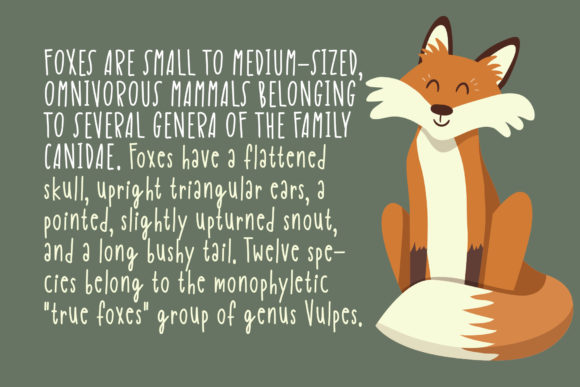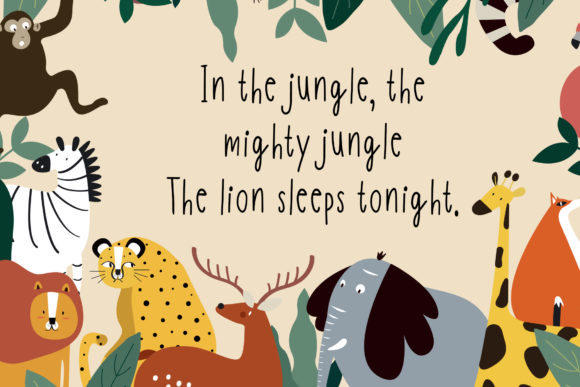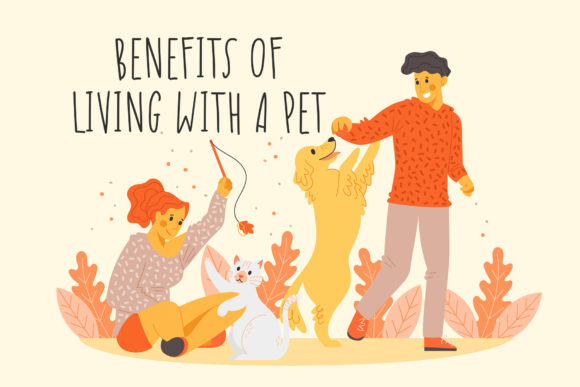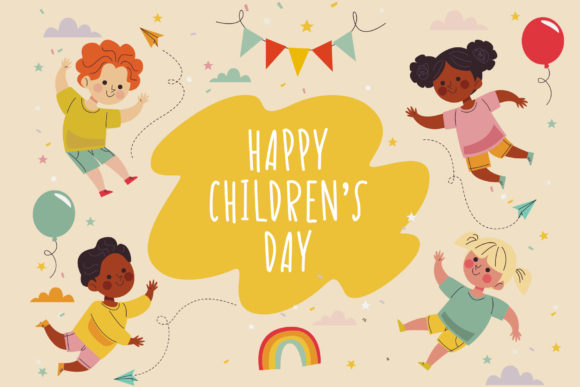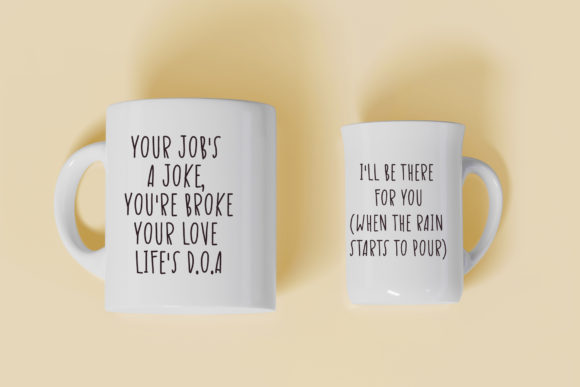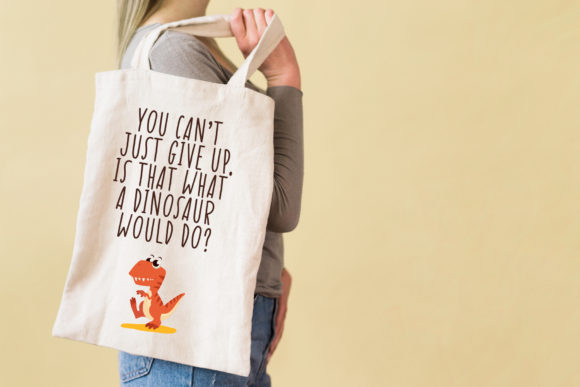
The Brown Fox Font: A Sweet and Friendly Companion for Your Designs
I’ll never forget the moment I stumbled upon the Brown Fox font. I was working on a project for a client’s wedding invitation, and I was struggling to find the perfect handwritten font that would capture the warm and cozy atmosphere of the event. The client had a clear idea of what they wanted, but I was having a hard time finding a font that matched their vision. That’s when I discovered Brown Fox, and it was love at first sight! 💕
So, what makes Brown Fox so special? Here are a few things that I absolutely love about this font:
- ✨ Unique and natural style: Brown Fox has a one-of-a-kind, handcrafted feel that sets it apart from other fonts.
- ✅ Highly versatile: This font can be used for a wide range of designs, from wedding invitations to social media graphics.
- 💫 Easy to read: Despite its unique style, Brown Fox is incredibly legible, making it perfect for both headings and body text.
Of course, no font is perfect, and Brown Fox has a few quirks to watch out for:
- 🤔 Limited availability of certain characters: Some users have reported that certain characters, such as ligatures, are not readily available.
- ⚠️ May not be suitable for very small text sizes: Brown Fox is best used at larger text sizes, as it can become a bit blurry at smaller sizes.
A Practical Guide to Using Brown Fox in Your Designs
The Story Behind Brown Fox
While the true story behind Brown Fox remains a mystery, it’s easy to imagine that it was created by a designer who loves nature and handmade crafts. Perhaps the designer spent hours watching foxes roam in the wild, mesmerized by their agility and playfulness. Whatever the inspiration, Brown Fox is a true gem that brings a touch of whimsy to any design.
| What is the best use for Brown Fox? | Brown Fox is incredibly versatile and can be used for a wide range of designs, from wedding invitations to social media graphics. |
| Is Brown Fox suitable for body text? | While Brown Fox is easy to read, it’s best used for headings and titles. For body text, you may want to choose a more traditional font. |